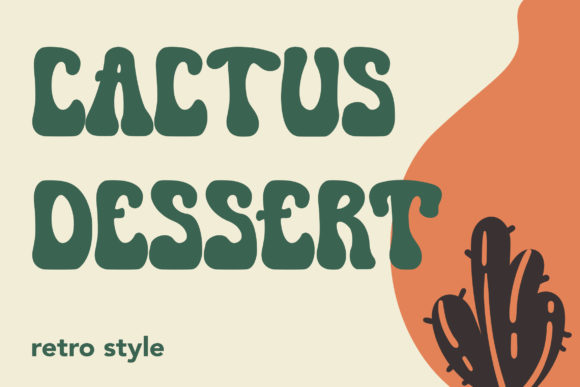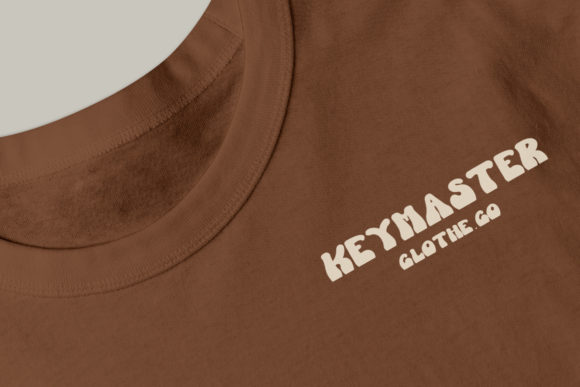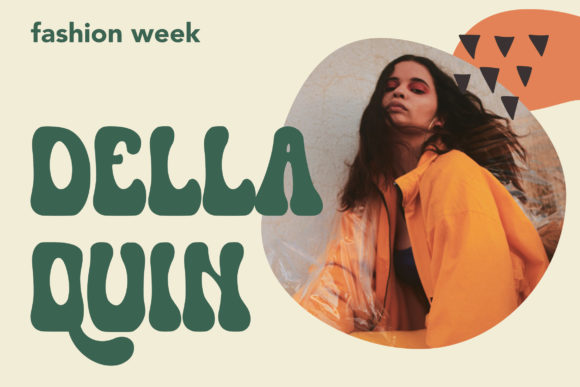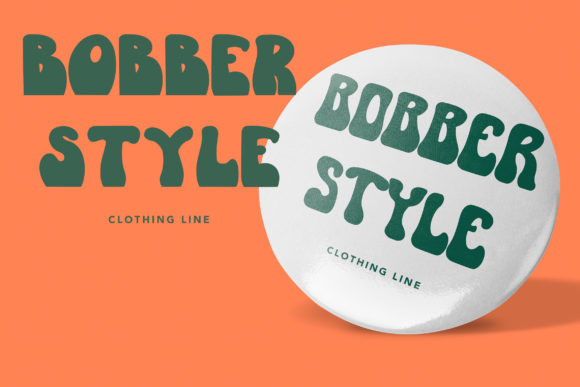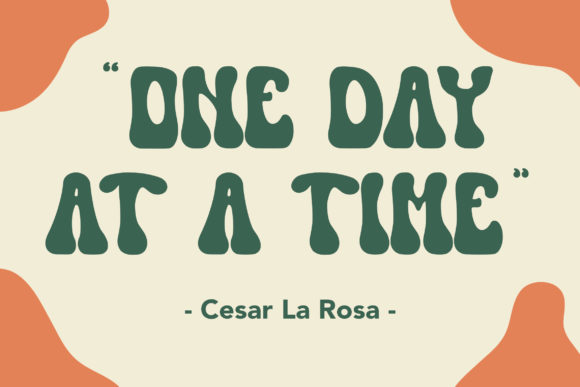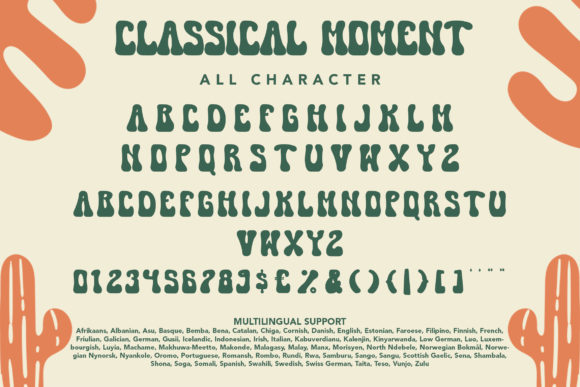
Introducing Classical Moment Font: Elevate Your Designs with a Vintage Twist
Are you a designer or crafter looking for a unique and stylish font to add a touch of elegance and sophistication to your creations? Look no further than Classical Moment Font, a cool and groovy styled display font that’s sure to enhance any project you wish to develop. With its vintage charm and versatility, this font is perfect for a wide range of design applications, from branding and advertising to packaging and more.
The Charm of Classical Moment Font
Classical Moment Font boasts a distinctive, vintage aesthetic that’s reminiscent of a bygone era. Its elegant lines, curves, and swashes evoke a sense of nostalgia and refinement, making it an excellent choice for designers who want to add a touch of classic sophistication to their work. Whether you’re creating a logo, poster, or social media graphic, this font is sure to make your design stand out from the crowd.
Key Features of Classical Moment Font
- Unique and stylish design: Classical Moment Font features a one-of-a-kind design that’s both cool and groovy, making it perfect for designers who want to add a touch of personality to their work.
- Vintage charm: With its elegant lines, curves, and swashes, this font exudes a sense of nostalgia and refinement, making it ideal for designs that require a classic, sophisticated look.
- Versatile: Classical Moment Font is a display font that’s suitable for a wide range of design applications, from branding and advertising to packaging and more.
- Easily readable: Despite its ornate design, Classical Moment Font is surprisingly easy to read, making it perfect for use in both digital and print designs.
How to Use Classical Moment Font in Your Designs
Classical Moment Font is incredibly versatile, making it easy to incorporate into a wide range of design projects. Here are a few ideas to get you started:
- Logos and branding: Use Classical Moment Font to create a unique and memorable logo that reflects your brand’s personality and style.
- Posters and flyers: Add a touch of elegance and sophistication to your posters and flyers with this beautiful display font.
- Social media graphics: Use Classical Moment Font to create eye-catching social media graphics that are sure to grab the attention of your followers.
- Packaging design: Add a touch of vintage charm to your packaging design with Classical Moment Font, making your products stand out on store shelves.
Tips for Getting the Most Out of Classical Moment Font
To get the most out of Classical Moment Font, here are a few tips to keep in mind:
- Experiment with different sizes and colors: Classical Moment Font looks great in a variety of sizes and colors, so don’t be afraid to experiment to find the perfect combination for your design.
- Pair it with other fonts: Try pairing Classical Moment Font with other fonts to create a unique and visually appealing design.
- Use it sparingly: While Classical Moment Font is a beautiful font, it can be overwhelming if used too much. Use it sparingly to create a focal point in your design.
Classical Moment Font is a unique and stylish display font that’s perfect for designers and crafters looking to add a touch of elegance and sophistication to their creations. With its vintage charm, versatility, and ease of use, this font is sure to enhance any design project you wish to develop. So why wait? Download Classical Moment Font today and start creating stunning designs that are sure to impress!